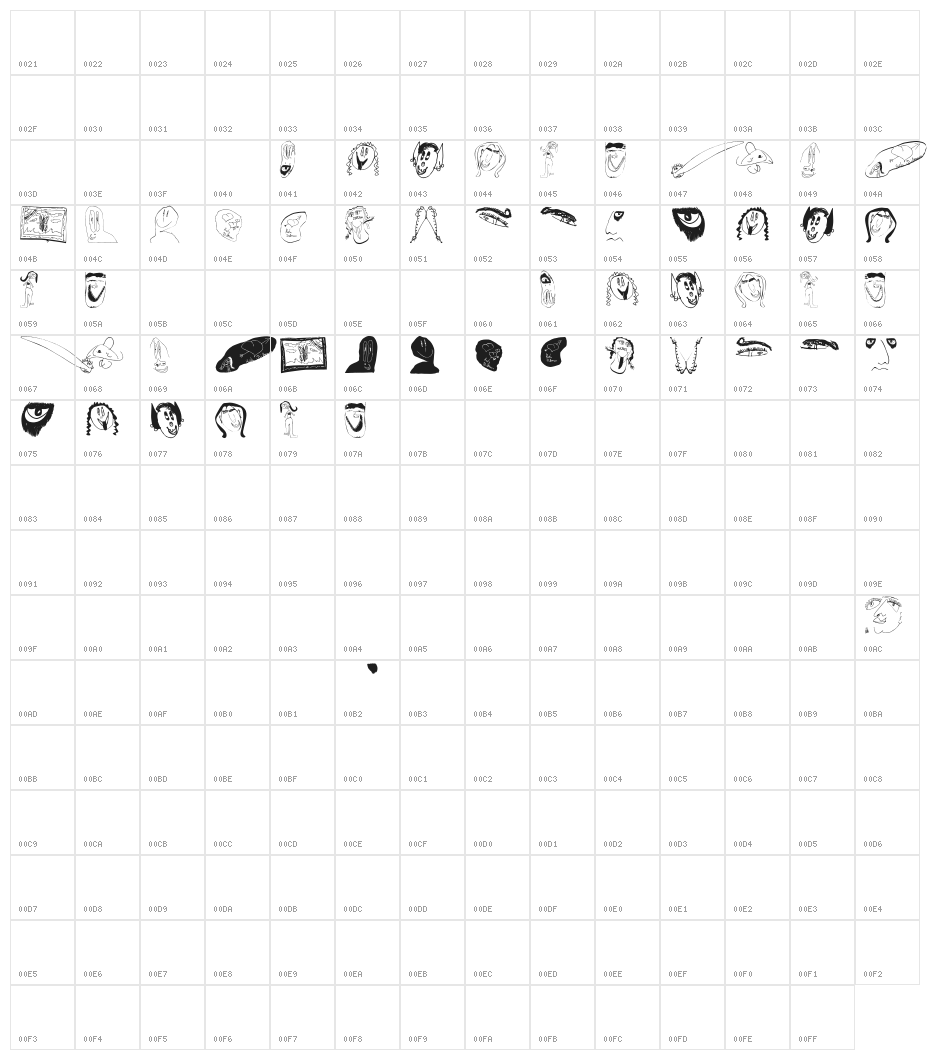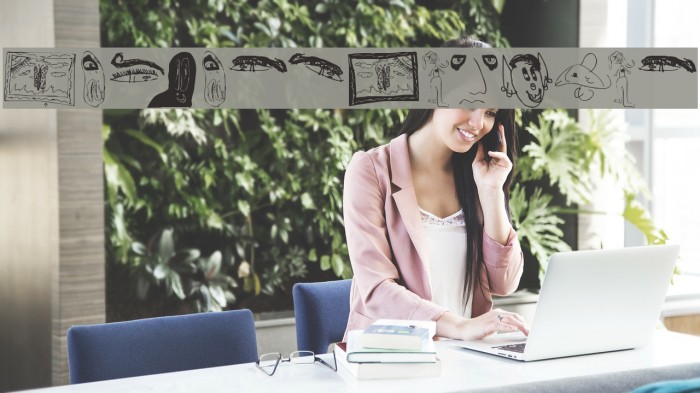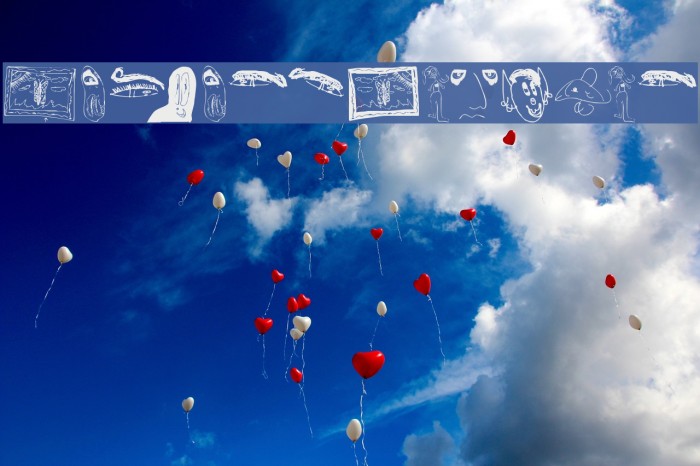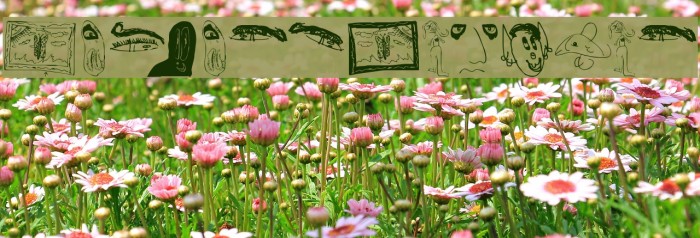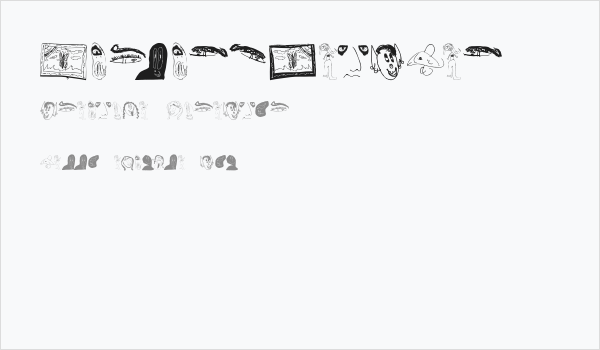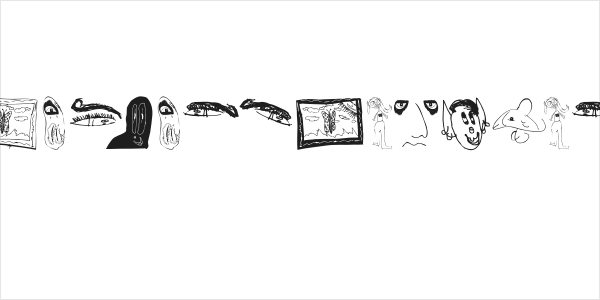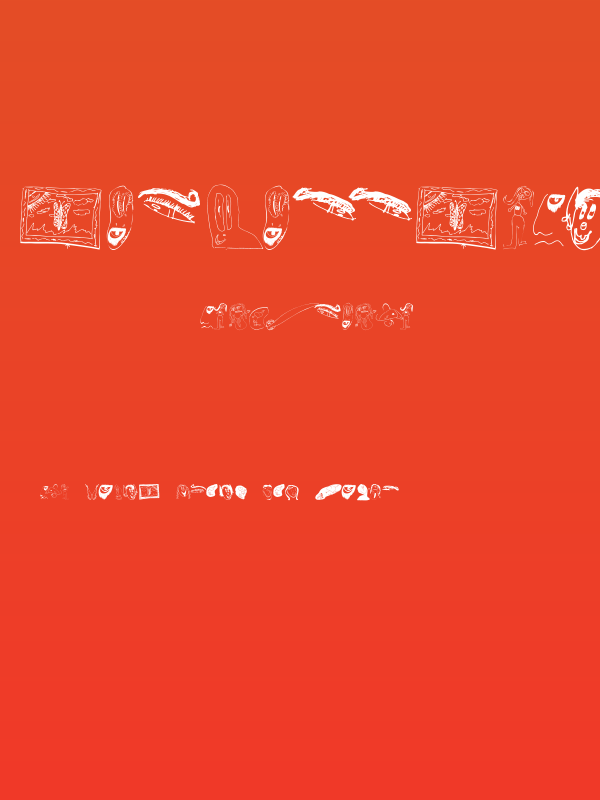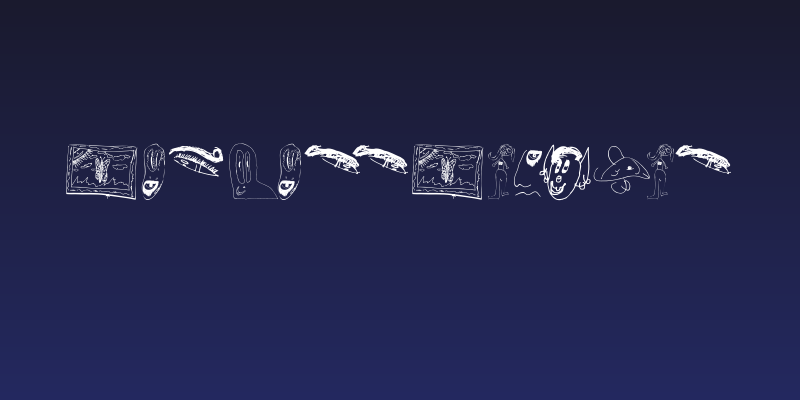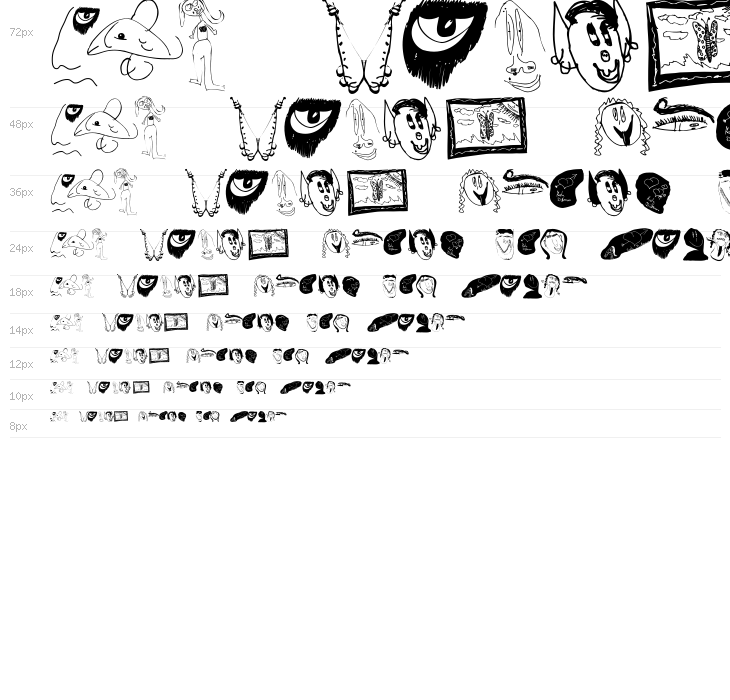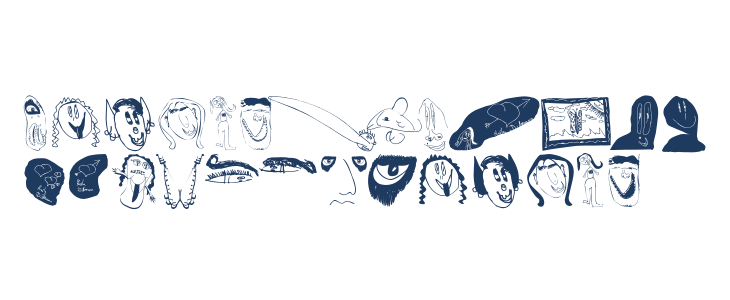
KarlasSketches Font
KarlasSketches Description
This font is a highly creative and artistic representation, featuring whimsical and sketch-like illustrations for each character. Each letter and number is uniquely designed with playful and imaginative drawings, resembling doodles or sketches. The style is informal and expressive, capturing a sense of spontaneity and creativity. The characters are not uniform, with varying line thicknesses and intricate details that give each one a distinct personality. This font is perfect for projects that require a fun and artistic touch, adding a unique visual element to any design.
| Overall Style | Artistic, Whimsical |
| Use Case | Logos, Posters, Creative Projects |
| Proposed Projects | Ideal for children's books, creative posters, art projects, and any design needing a playful and artistic flair. |